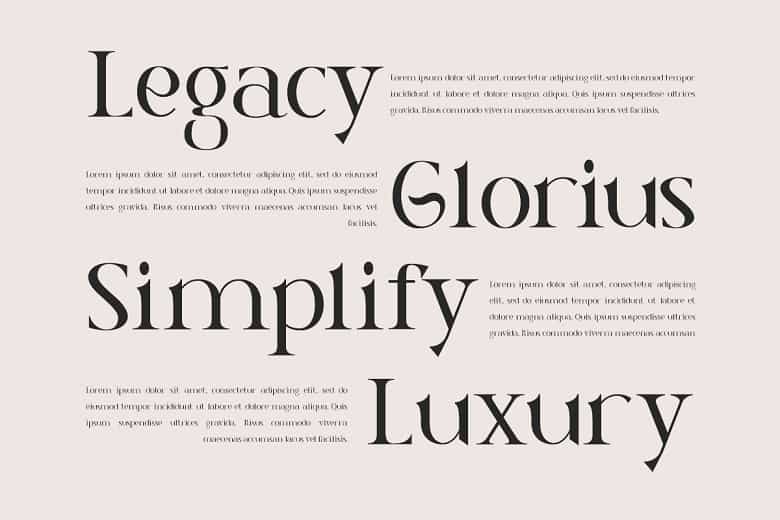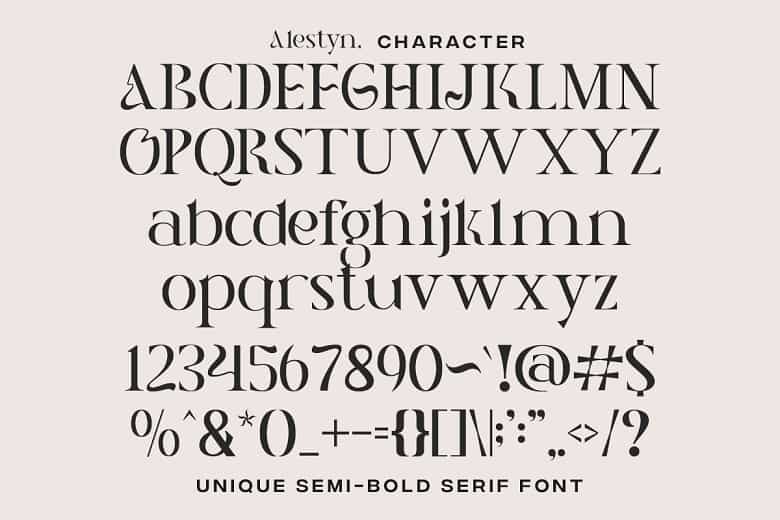
Alestyn Font
Alestyn is a refined serif font that unites the classic touch with the modern look. With elegant design and up to date look. Alestyn gives the design project a touch of the feminine and elegance that is why it will suit those who want to combine it with style.